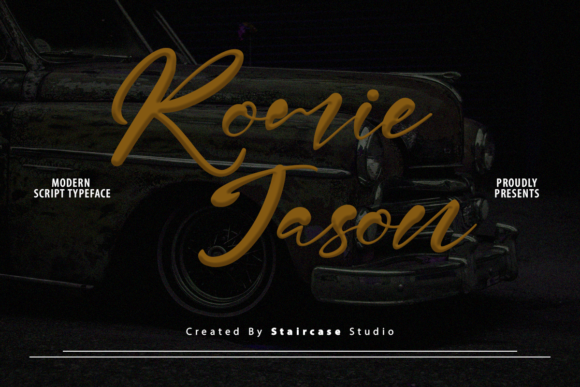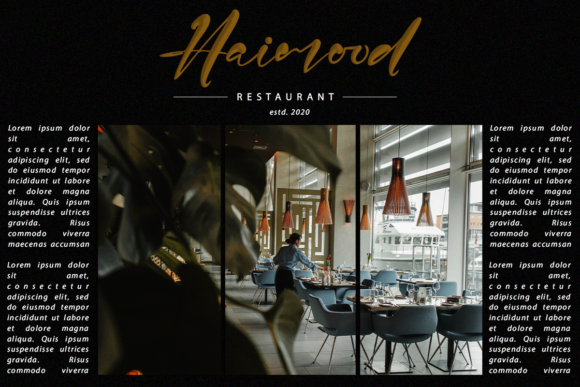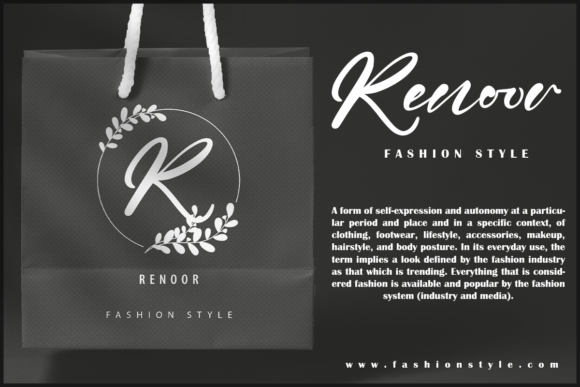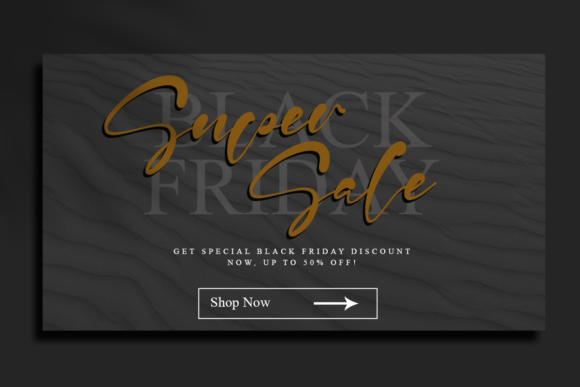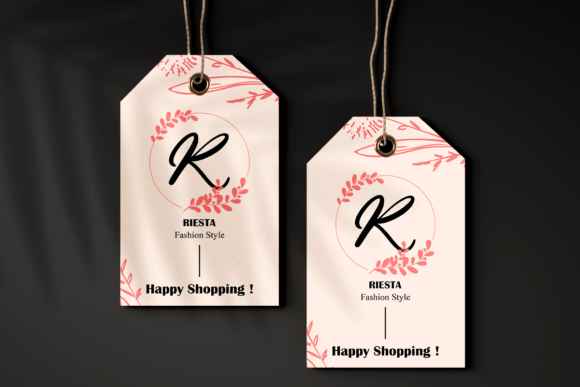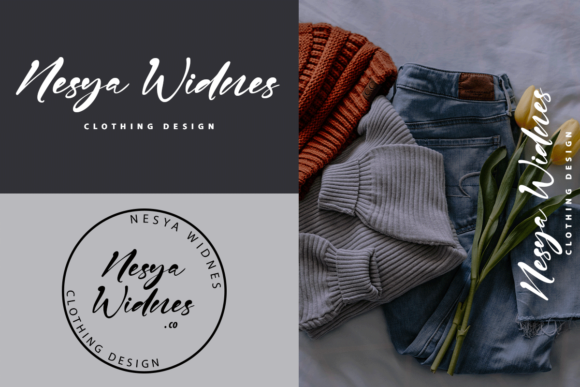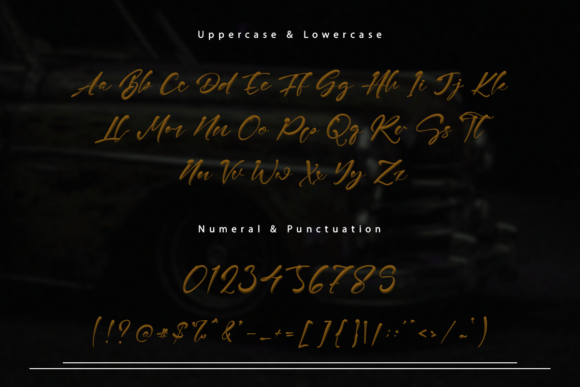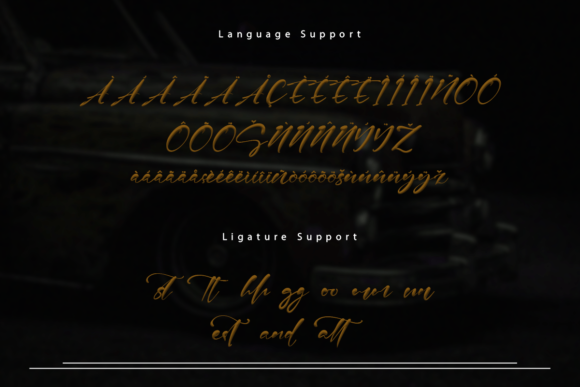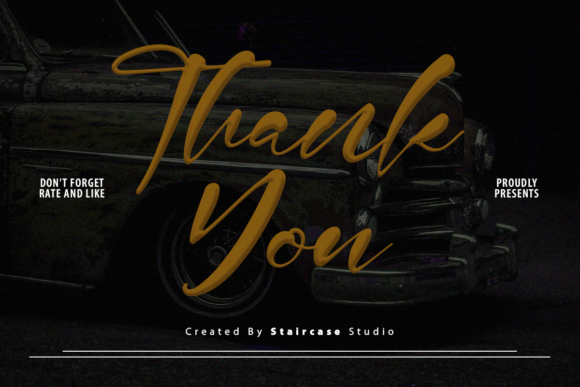
Romie Jason Font
About Romie Jason Font
Romie Jason is a fun and friendly handwritten font. Whether you are using it for cartoon-related designs, children games, quotes, titles, brand names, book covers, posters, or just any creation that requires a touch of joy, this font is a great choice.